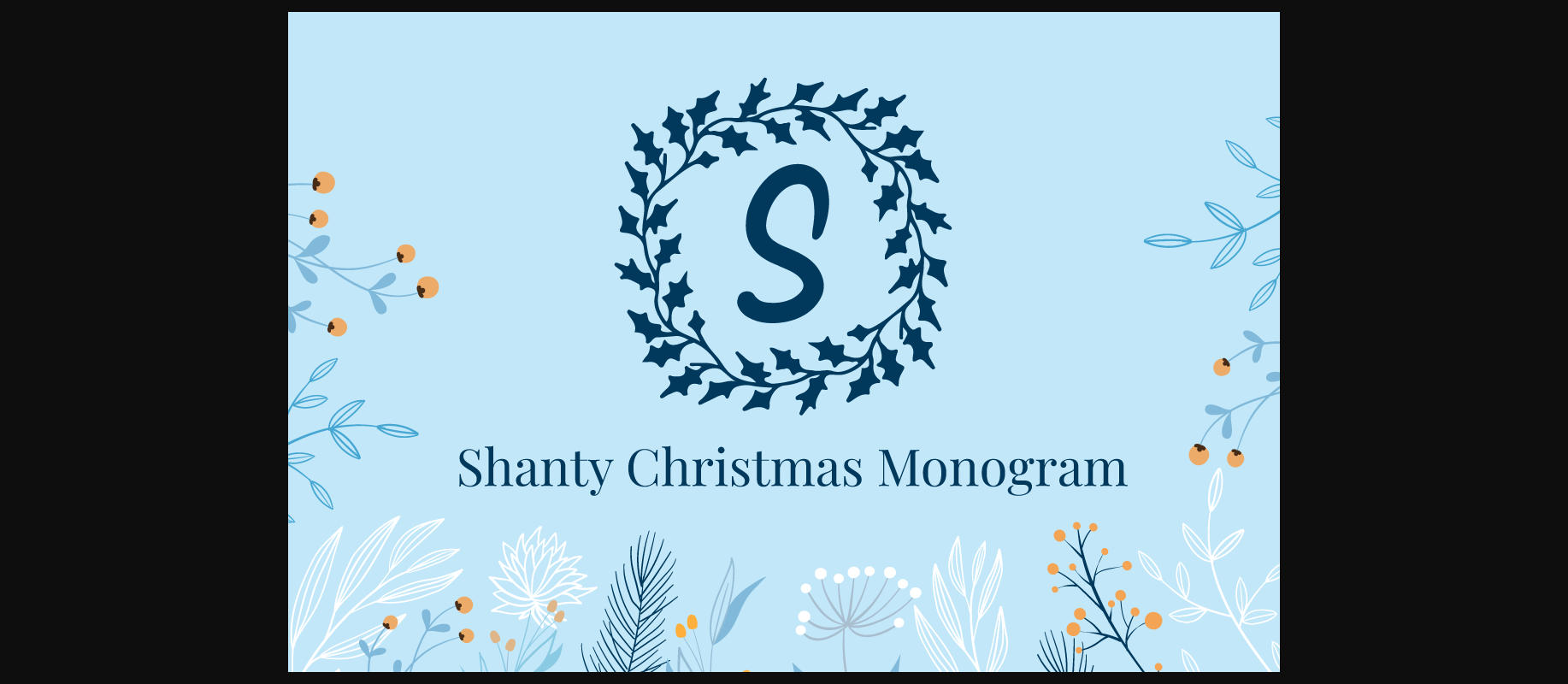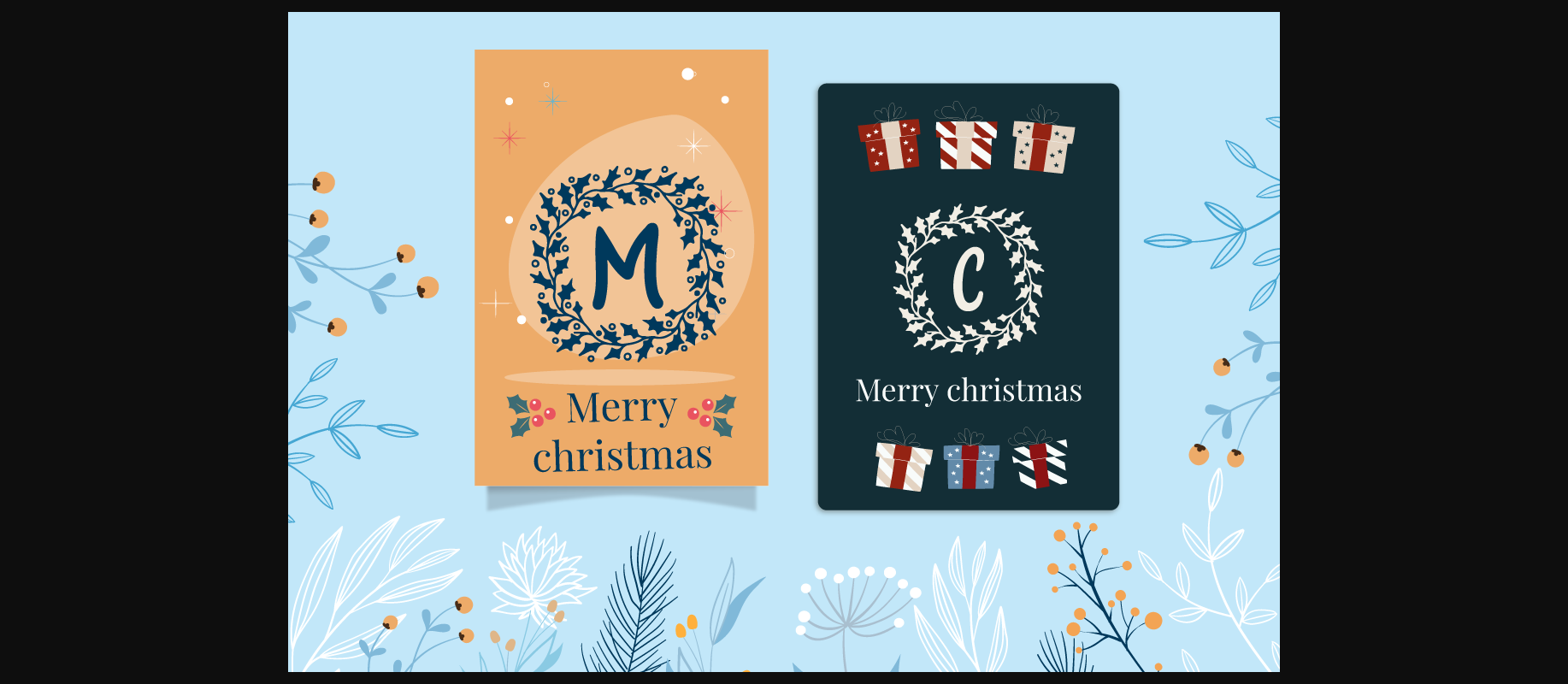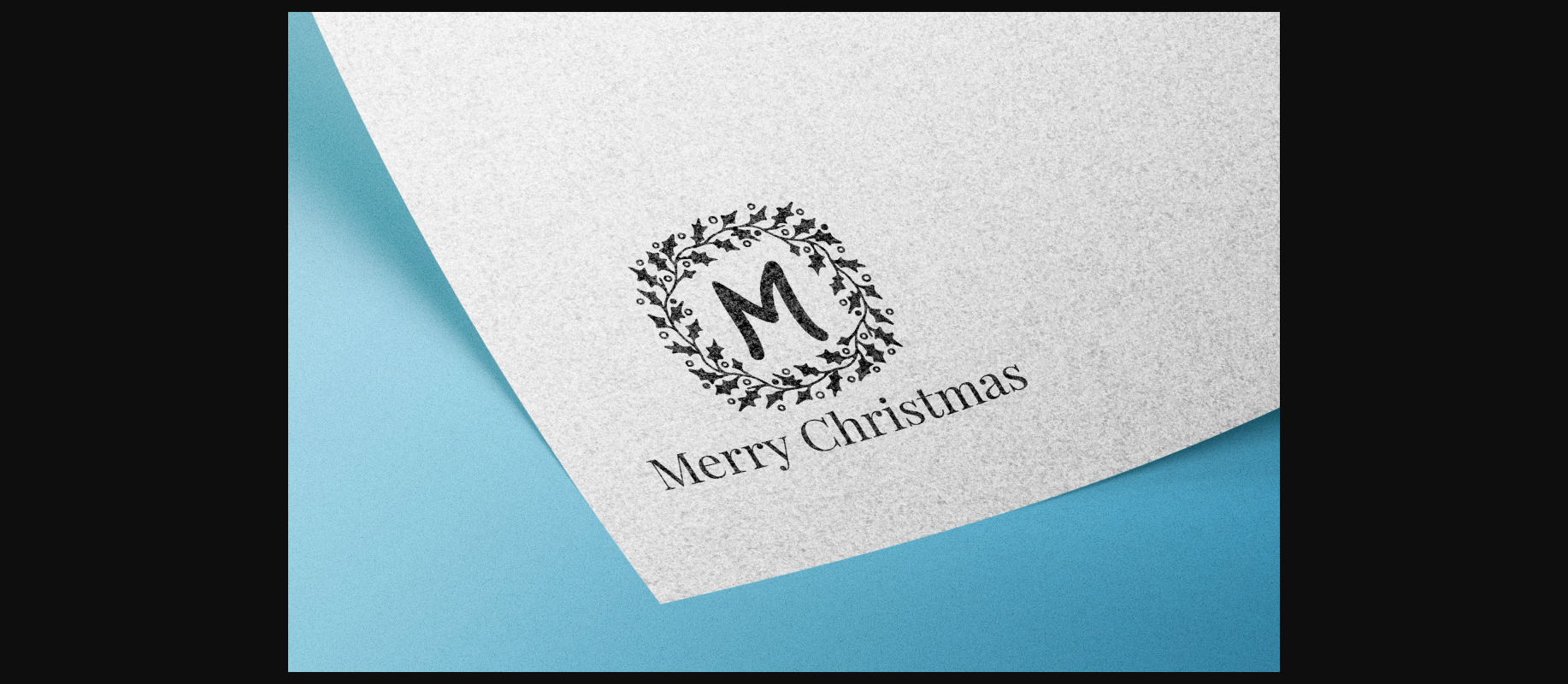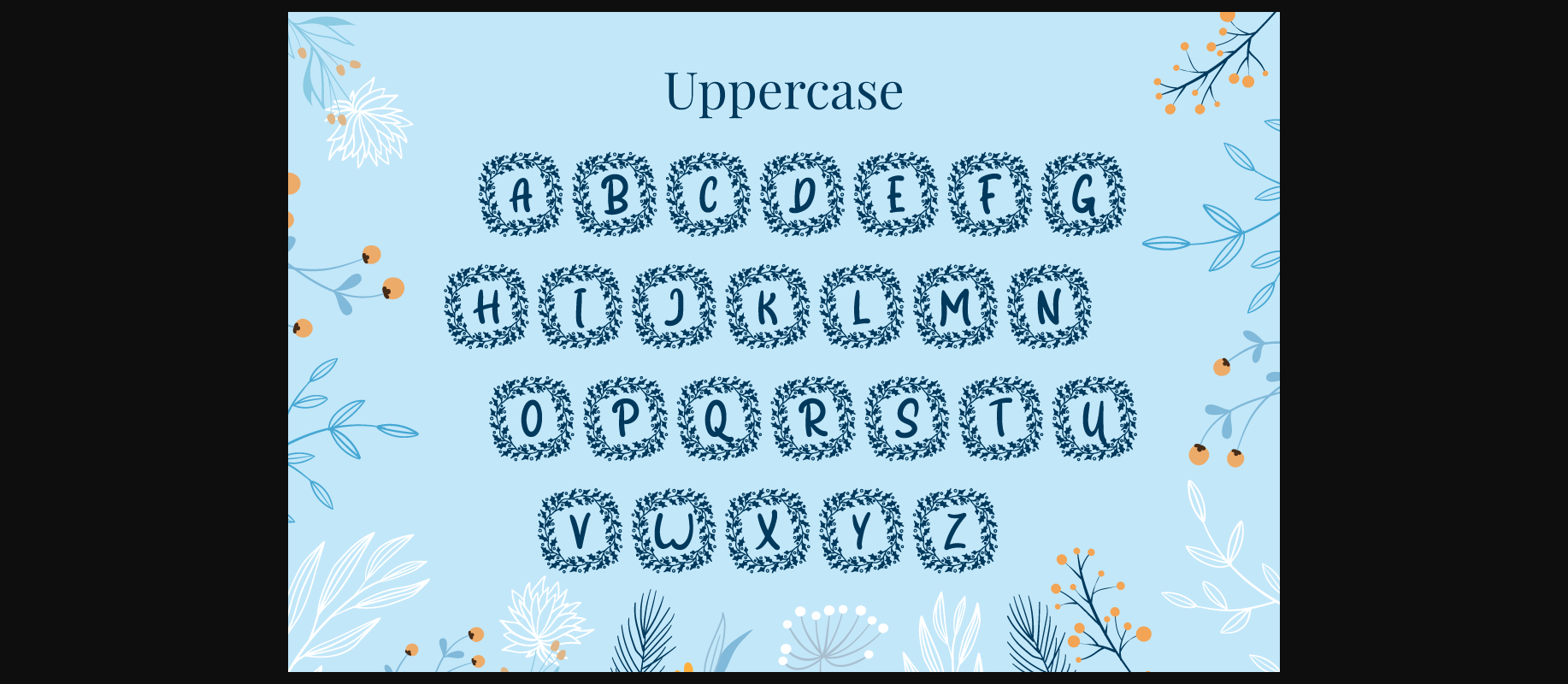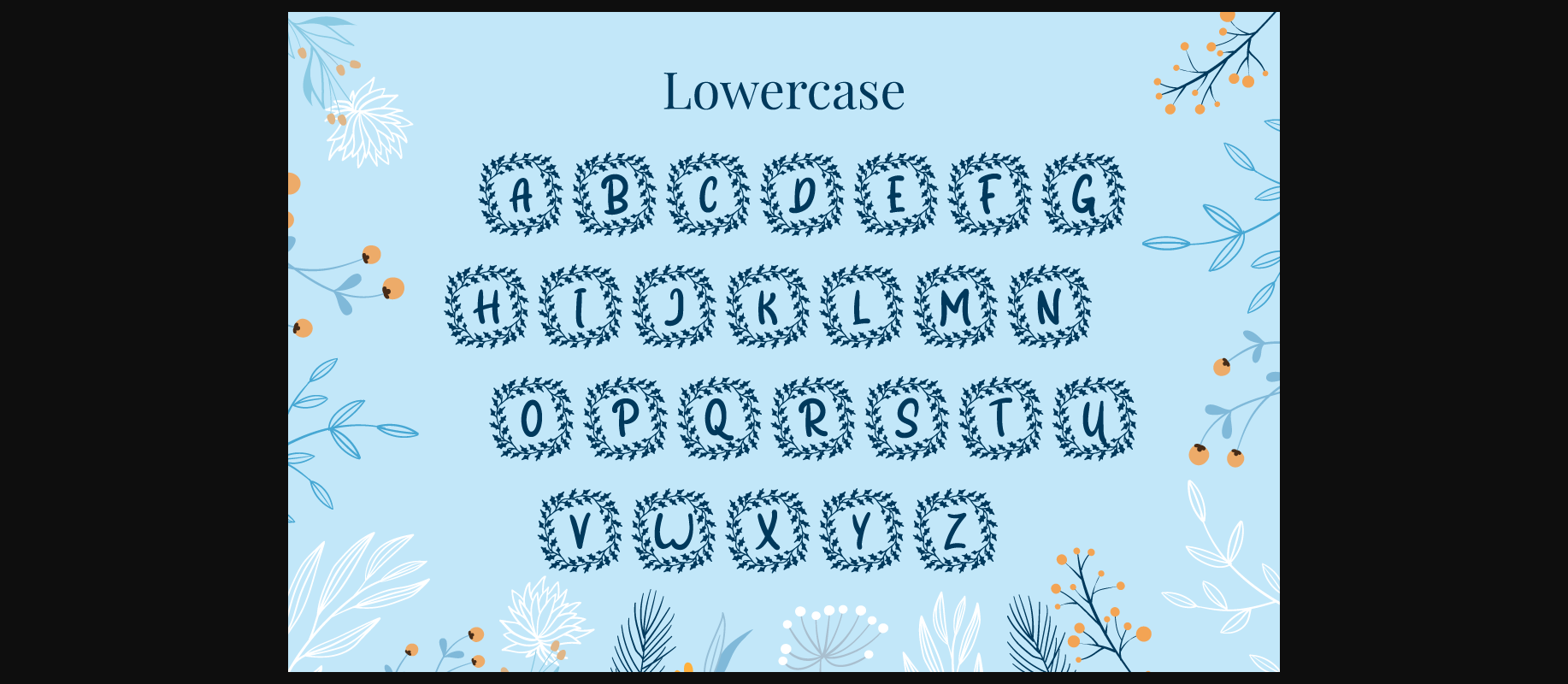
HomeDecorative FontsShanty Christmas Monogram Font Decorative Fonts Shanty Christmas Monogram Font FacebookXPinterestWhatsApp 1 of 7 ... Shanty Christmas Monogram Font Poster 2... Shanty Christmas Monogram Font Poster 3... Shanty Christmas Monogram Font Poster 4... Shanty Christmas Monogram Font Poster 5... Shanty Christmas Monogram Font Poster 6... Shanty Christmas Monogram Font Poster 7... About Shanty Christmas Monogram Font Shanty Christmas Monogram is a dainty and fresh decorative font. Add this lovely looking font to each of your love letters, wedding invitations or favorite design ideas, and you will be astounded by the outcome. DOWNLOAD NOW People also explored Apple and Sugar Font Quincy Font Holly Wings Font Agatha Font Rachel Bowie Font Grey or Gray Can Cooler Mockup Captain Webster Font Spotting Font Gending Font 276 0 TagsShanty Christmas Monogram Font Previous articleJusta FontNext articleKosalia Font LEAVE A REPLY Cancel reply Comment: Please enter your comment! Name:* Please enter your name here Email:* You have entered an incorrect email address! Please enter your email address here Website: Save my name, email, and website in this browser for the next time I comment. Personal Use Free Equestrain Personal Use Free Read more about this font Kinda Sweet Personal Use Free Read more about this font Baby Cute Personal Use Free Read more about this font Butter Belly Personal Use Free Read more about this font BLOG Fonts That Capture the Spirit of New York City New York City is more than just a place—it’s an experience, a rhythm, a visual language... Top 7 Google Fonts Alternatives for Faster and Privacy-Friendly Web Design (2025) How to Install and Use Fonts on Windows, macOS, and Web Projects 5 Fonts That Will Dominate Design Trends in 2026